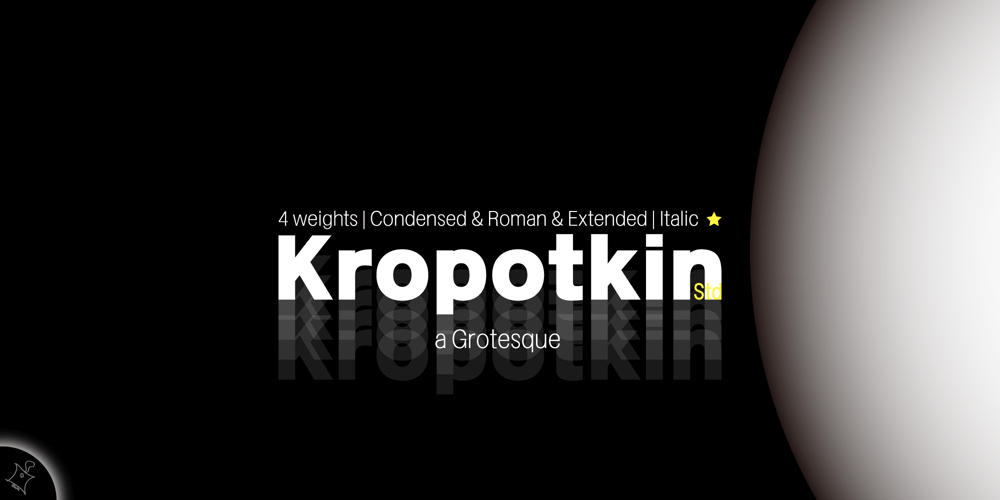
Kropotkin Std Font Family was designed by Shuji Kikuchi and published by sugargliderz. Kropotkin Std contains 20 styles and family package options. This typeface design was influenced by the British Rail corporate type introduced in an old lettering instruction book published in Japan. Of course, the only clue to this typeface is the lettering instruction book at hand. Therefore, this typeface is based on the British Rail corporate type introduced in an old lettering instruction book published in Japan, and I have expanded the design variations. I started with the Bold design first. Then I designed Light, Regular, and Black in that order. Light and Regular are intended to be used as the text type, while Bold and Black are intended to be used as the base for logotypes, headlines, and other eye-catchers.